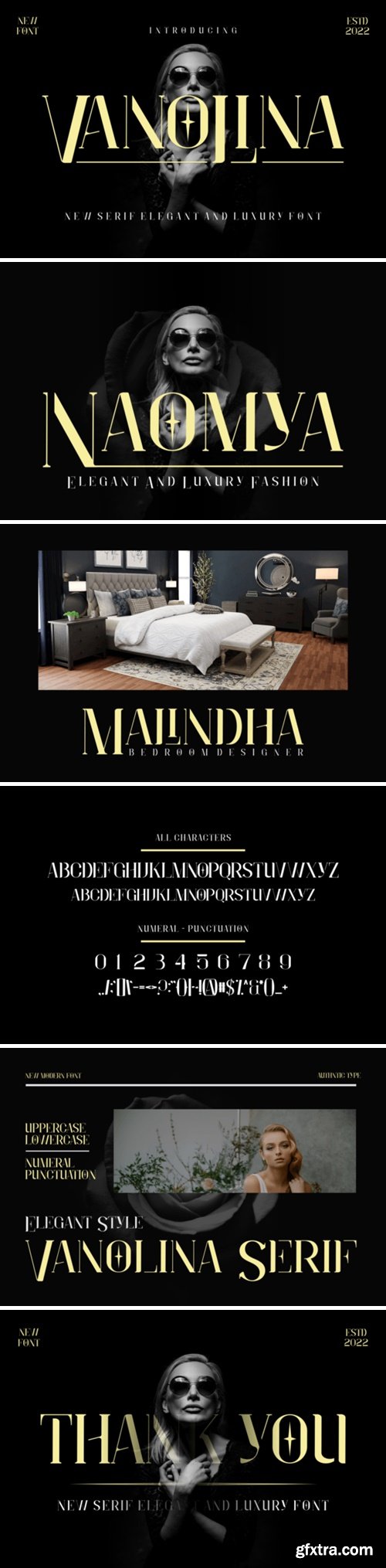
CM - Vanolina Font 92448224
Vanolina is an elegant and bold serif font. Fall in love with its incredibly versatile style and use it to create gorgeous wedding invitations, beautiful stationary art, eye-catching social media posts, and much more!